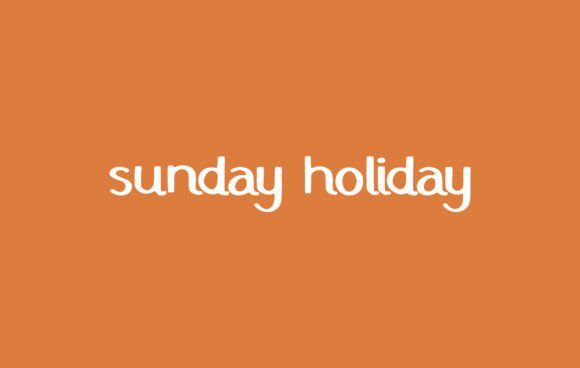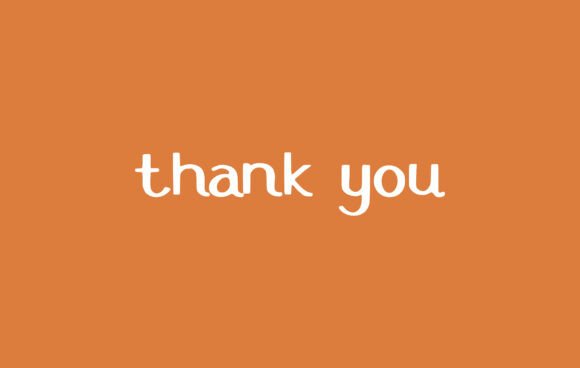
Introduction to Oakley Font
Remember that moment when you were brainstorming ideas for a new creative project, and you stumbled upon the perfect font that brought your vision to life? For designers, finding the right font can be the difference between a good design and a great one. That’s where the Oakley Font comes in – a beautifully crafted, authentic handwritten font that adds a touch of romance to any project.
Whether you’re working on a magazine headline, social media campaign, or wedding invitation, the Oakley Font is a valuable resource that can elevate your design to the next level. Its high-quality design and legibility make it perfect for both title and body text, and with a transparent background, you can easily use it as a design element or overlay.
Key Features of Oakley Font
- High-quality, professional font design suitable for various creative projects.
- Comes with a transparent background, making it easy to use on any design resource.
- Unique characteristic: The Oakley Font features a modern, clean design with a touch of sophistication, making it perfect for branding and marketing materials.
- Can be used for a wide range of applications, including business cards, logos, and brochures, thanks to its versatility and high-quality design.
Honest Review: Oakley Font
I recently stumbled upon the Oakley Font, a free download that has been making waves in the design community. As a designer, I was excited to dive in and see if it lived up to the hype.
Here are some of the things that work well for the Oakley Font:
- ✨ High quality: The font is crisp and clean, with a professional feel that’s perfect for creative projects.
- ✨ Versatile: The Oakley Font is available in a range of weights and styles, making it easy to find the perfect fit for your design.
- ✨ Transparent background: The font’s transparent background makes it easy to layer and combine with other design elements.
- ⚠️ Limited character set: While the font is available in a range of weights and styles, the character set is somewhat limited, which may not be ideal for longer blocks of text.
- ⚠️ Not suitable for body text: Due to its condensed style, the Oakley Font may not be the best choice for body text or large blocks of reading material.
Overall, I was impressed with the Oakley Font’s high quality and versatility. While it may have some limitations, it’s a great resource for designers working on creative projects that require a bold, eye-catching font.
Common Use Cases for Oakley Font
Oakley Font is perfect for a variety of design projects, including logos, branding materials, and social media graphics. Its high-quality design and transparent background feature make it ideal for creating custom designs that stand out.